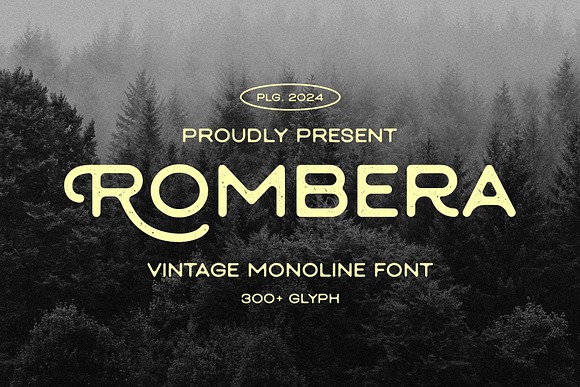
Rombera Font
About Rombera
Introducing Rombera, a fancy vintage monoline font, inspired by the vintage signage that visualizes a letterpress/inky looks and modern calligraphy. Perfect for logos, apparel, labels, posters, quotes, signage, packaging, and more!